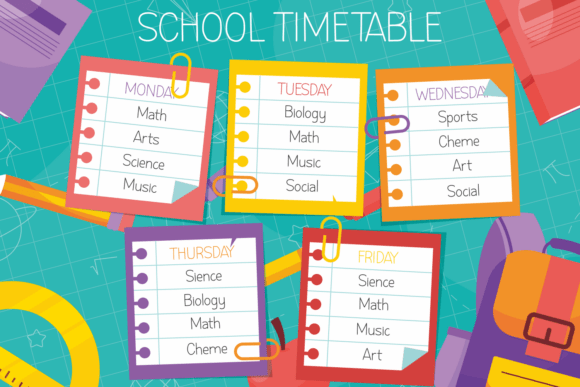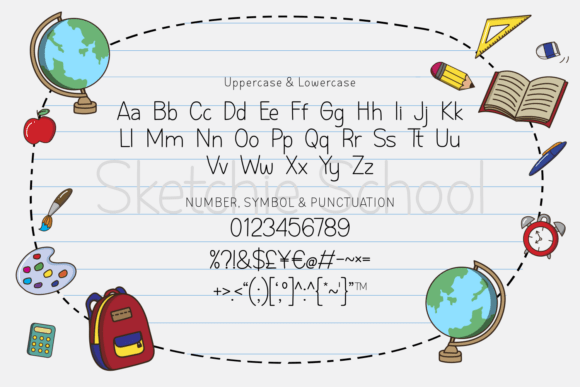
Sketchie School Font
Sketchie School is a fun and friendly monoline font inspired by school notebooks and hand-drawn doodles. With its clean, rounded strokes and handwritten charm, this typeface brings a casual, approachable feel that’s perfect for educational projects, kids’ books, classroom materials, planners, and crafts.
Designed to mimic neat student handwriting, Sketchie School offers both clarity and character – making learning look more fun!